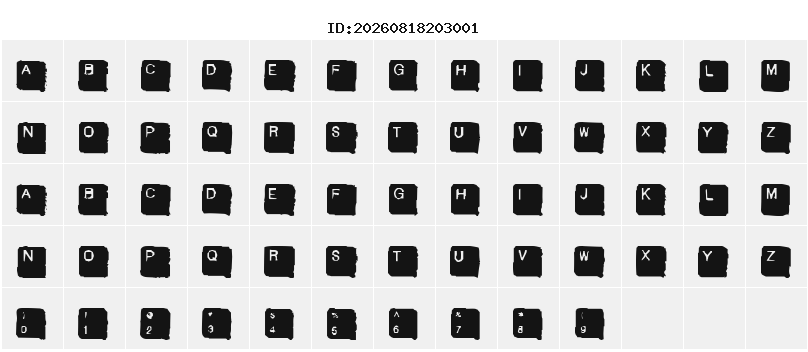
SkanHead Preview
• Font Name: SkanHead
• Font Style: Lite
• Full Font Name: SkanHead Lite
About SkanHead.ttf
SkanHead.ttf is a modern, elegant sans-serif font designed for ultimate readability and visual harmony. Perfect for branding, headlines, web design, and print materials.